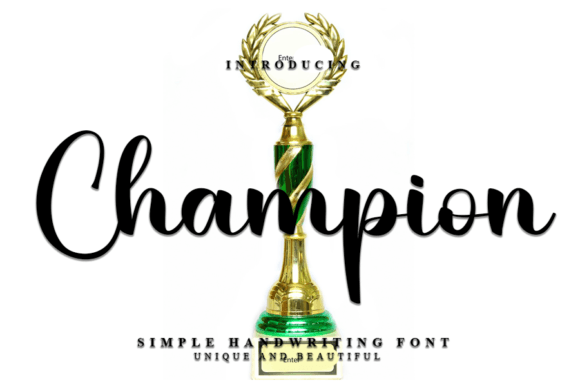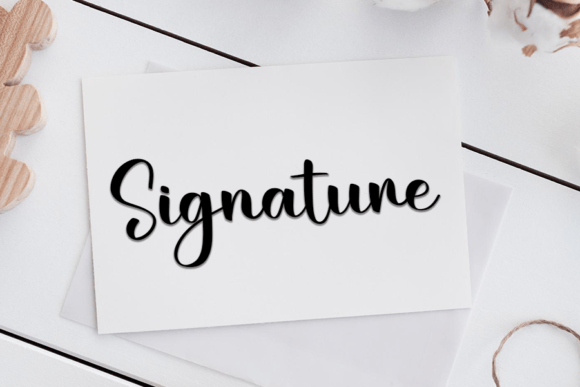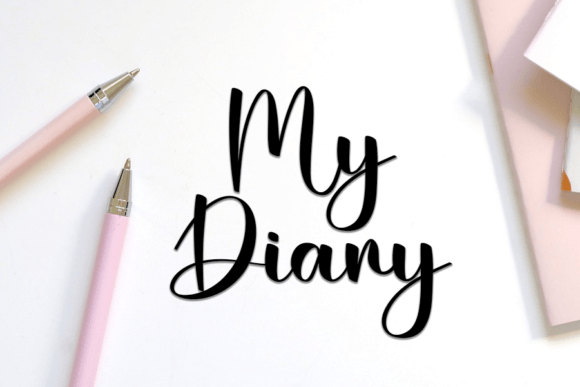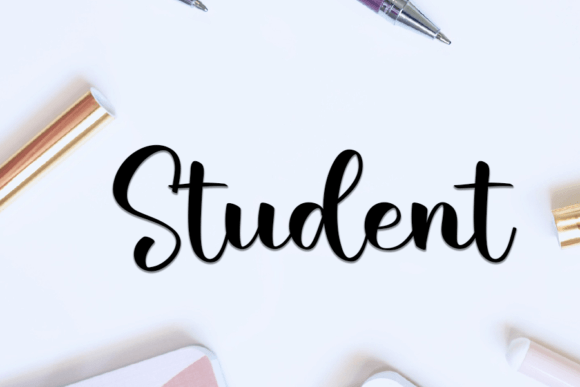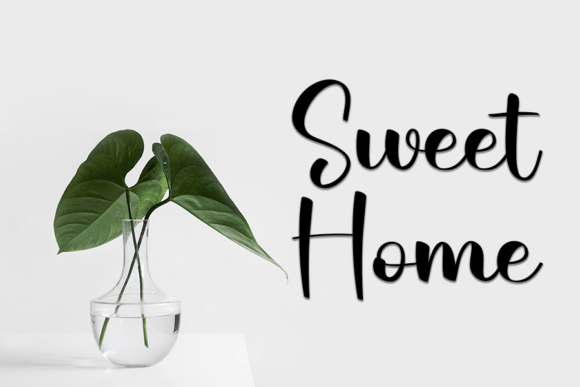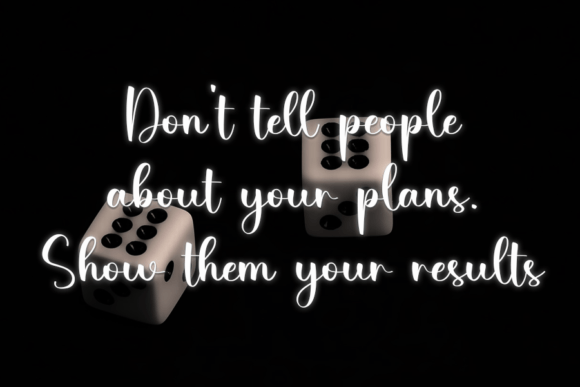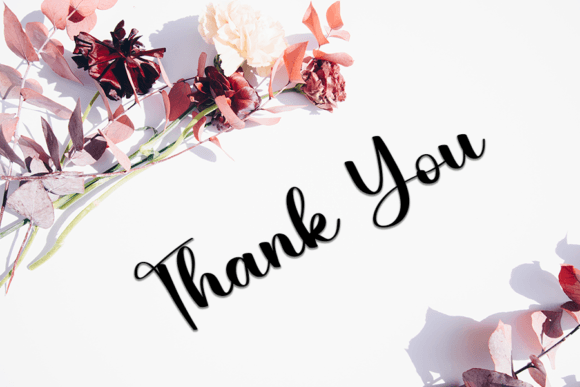
Champion Font
About Champion Font
Champion Font is a bold and eye-catching script typeface designed to bring power and personality to your projects. Whether you’re working on crafts, digital artwork, business presentations, or greeting cards, this font stands out with its confident, stylish strokes.
Crafted with both elegance and strength in mind, Champion Font strikes a balance between boldness and fluidity. Its sweeping curves and clean structure make it easy to read, even in dynamic or layered design environments.
Ideal Uses for Champion Font
Thanks to its standout appearance and versatile form, ChampionFont fits perfectly into a wide variety of creative applications. You can use it for:
• Crafts and handmade goods
• Event invitations and thank-you notes
• Logos, branding, and packaging
• Social media posts and banners
• Posters, ads, and digital presentations
No matter the medium, this font adds energy and charm that elevates your message.
Why Choose Champion Font?
There are plenty of script fonts available, but ChampionFont goes the extra mile with its:
• Bold, elegant letterforms that demand attention
• Smooth, flowing script style that mimics natural handwriting
• High versatility, perfect for print and digital designs
• Readable yet decorative characters that don’t sacrifice style for clarity
Moreover, its handcrafted look adds a personal and artistic feel to your work, helping it stand out from the crowd.